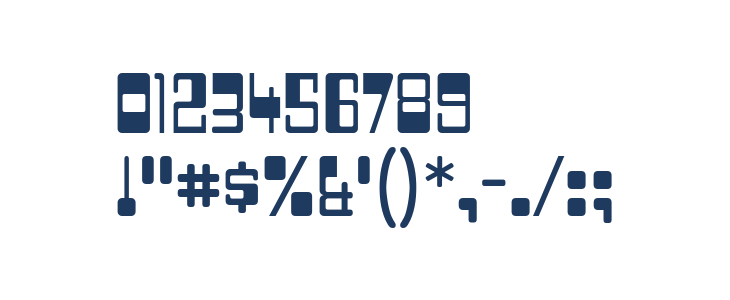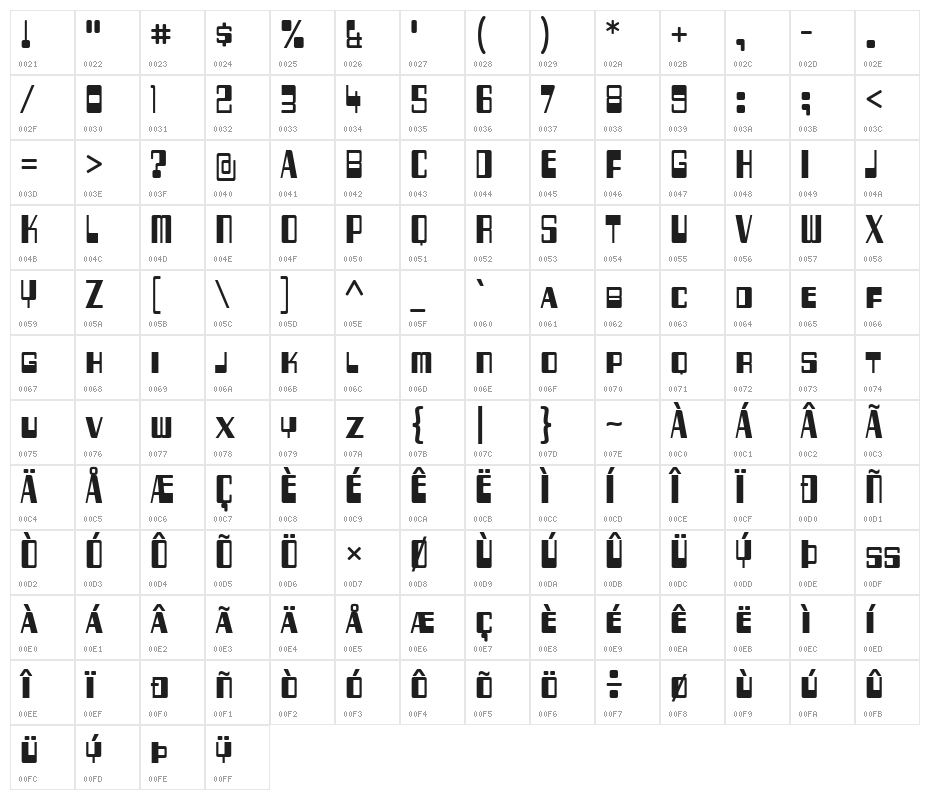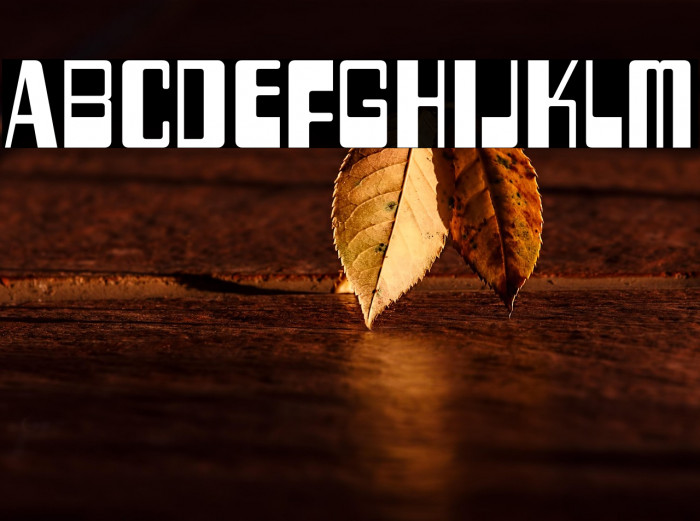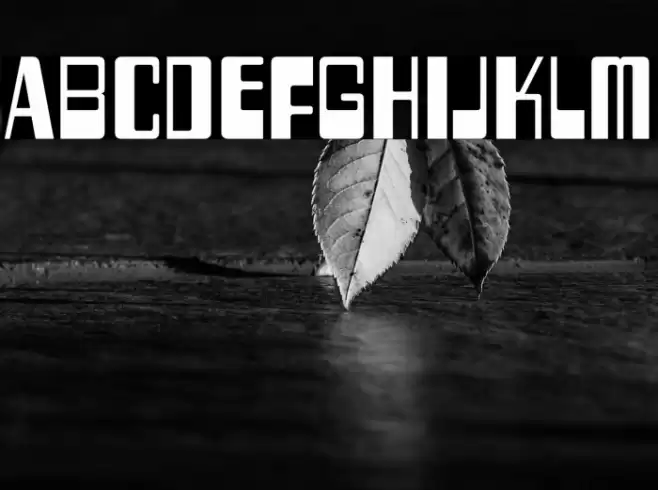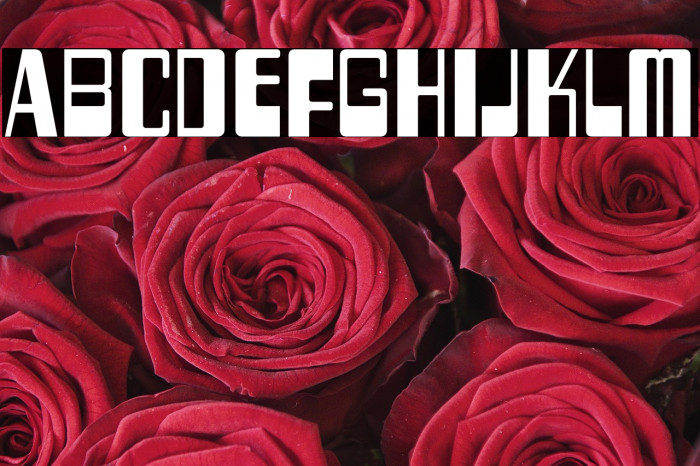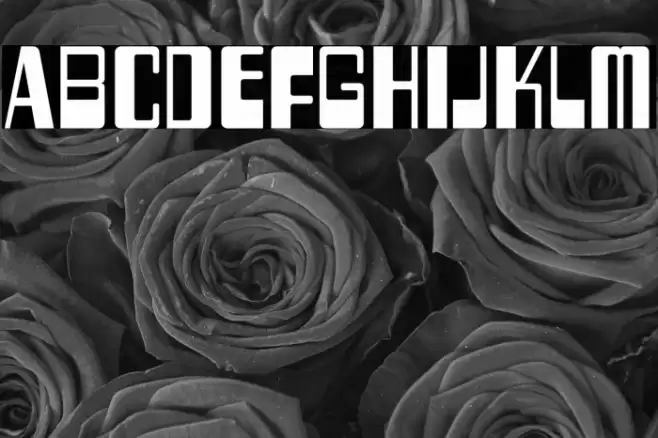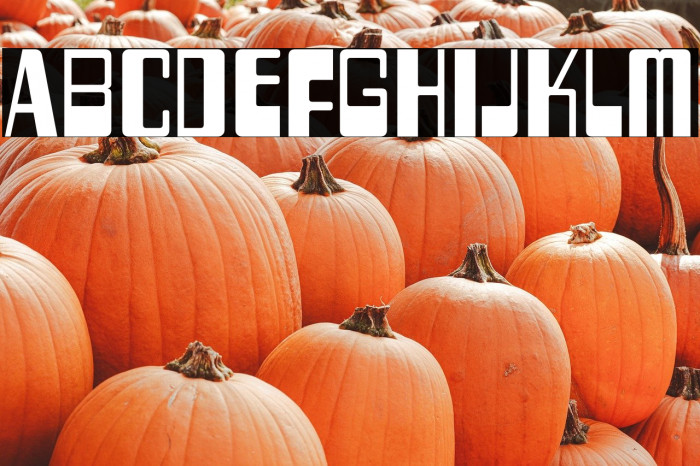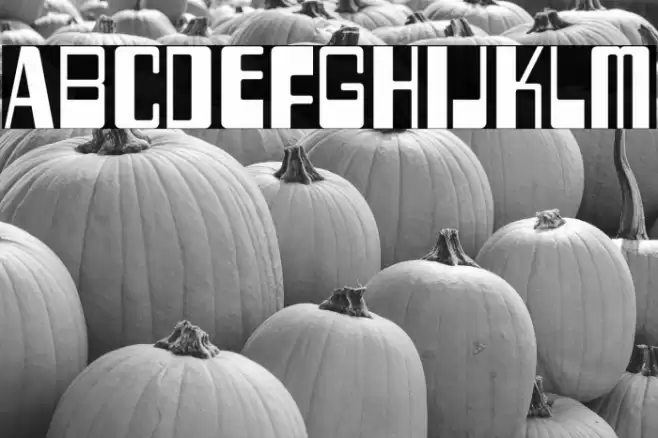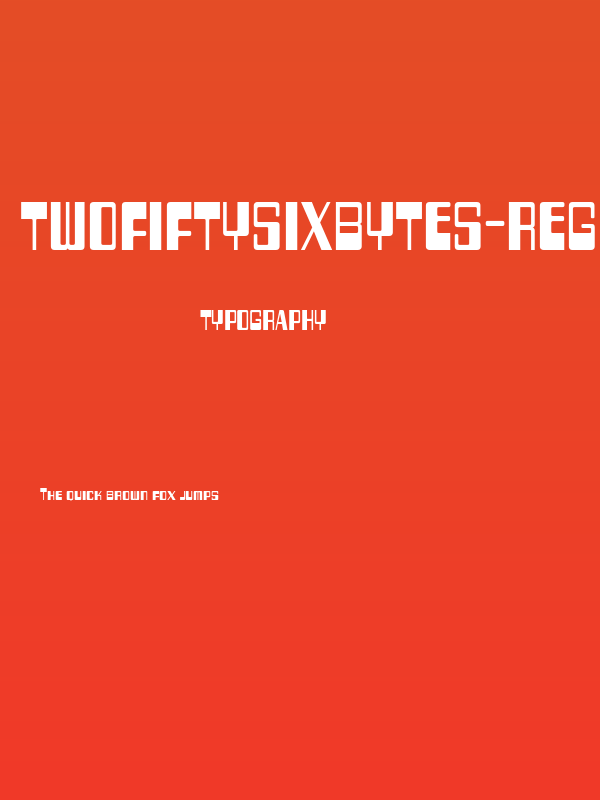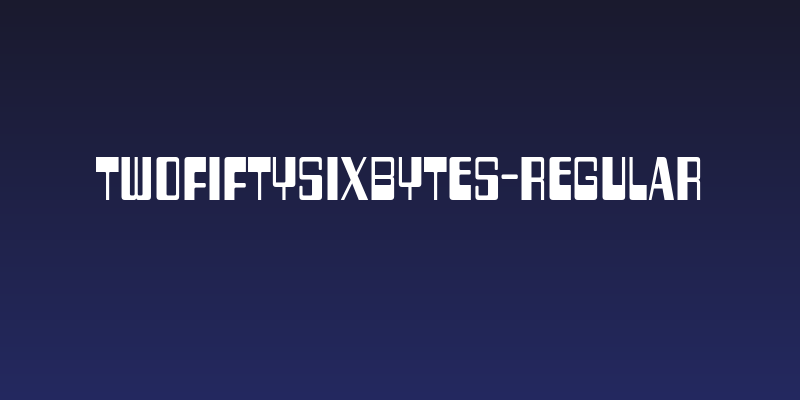
TwoFiftySixBytes-Regular Font
TwoFiftySixBytes-Regular Description
This font features a bold and geometric design with a distinctly modern and digital aesthetic. The characters are constructed with a combination of thick and thin strokes, creating a high contrast that enhances readability while maintaining a unique style. The uppercase letters are uniform in height, with a blocky appearance that suggests a futuristic or technological theme. The numerals and special characters follow the same design principles, ensuring consistency across all elements. This font is ideal for projects that require a strong visual impact, such as digital interfaces, video game graphics, or technology branding.
| Proposed Projects | Ideal for digital interfaces, video game graphics, technology branding, and futuristic designs. |